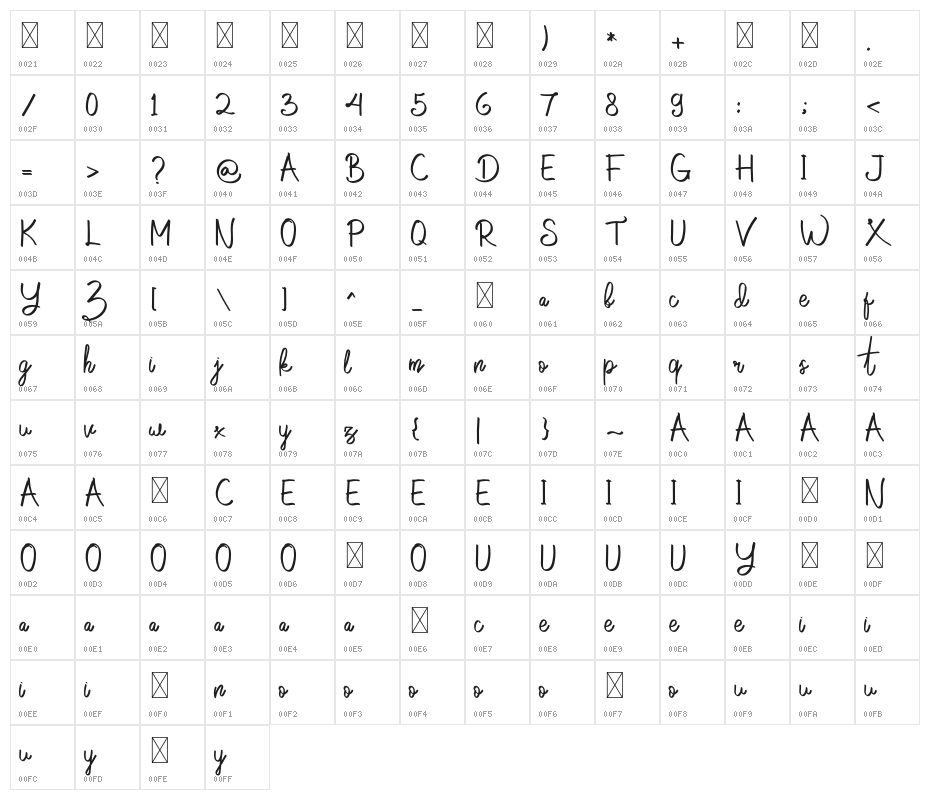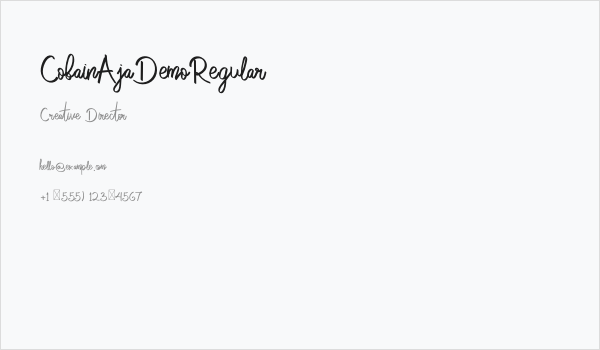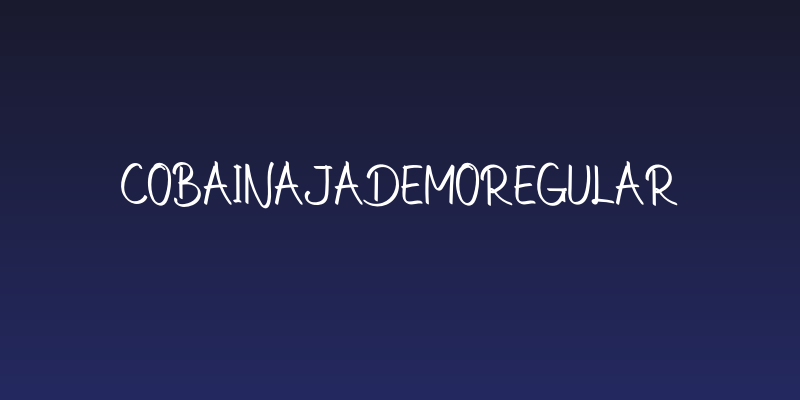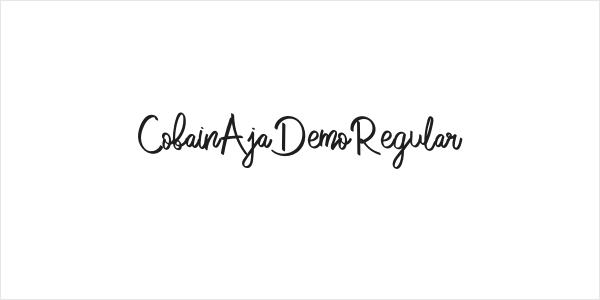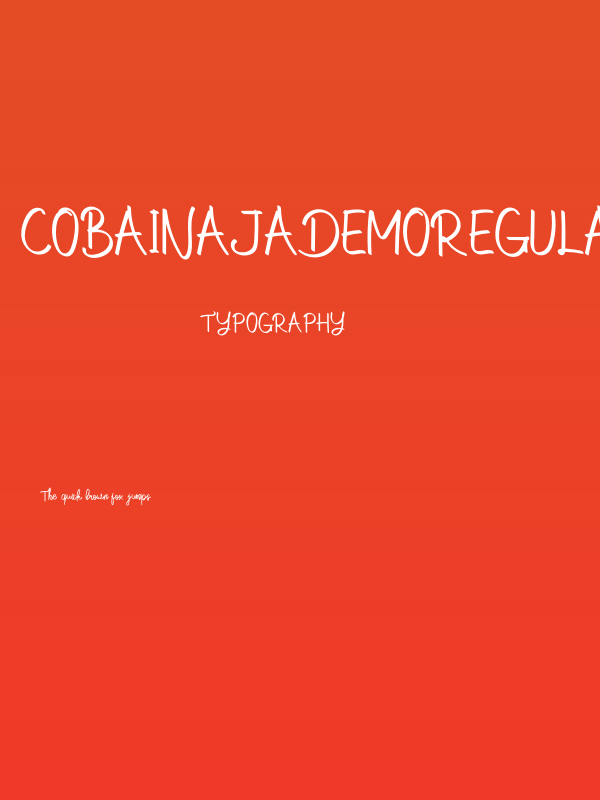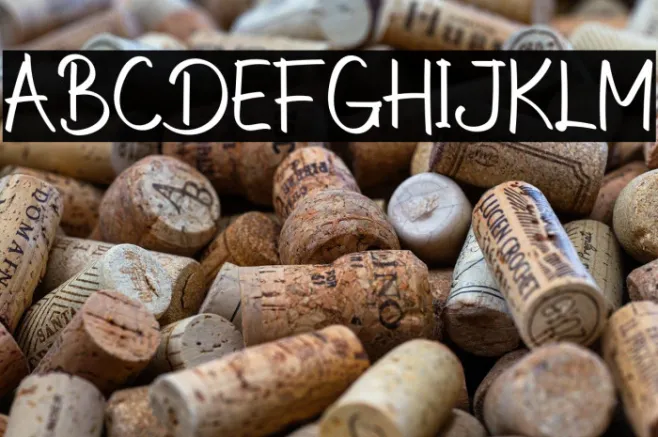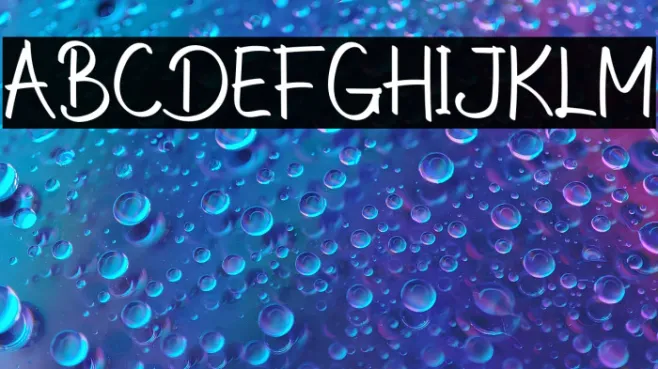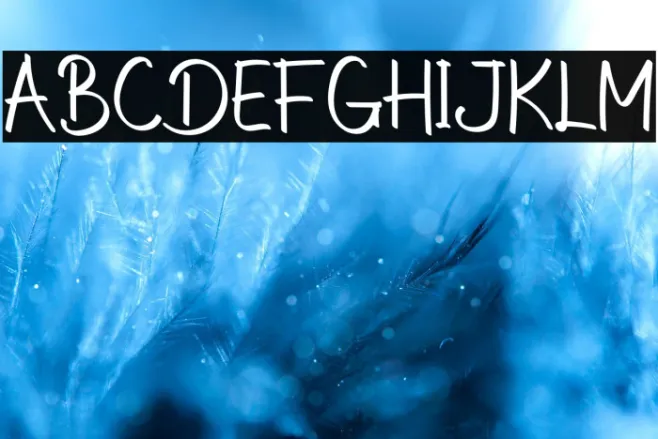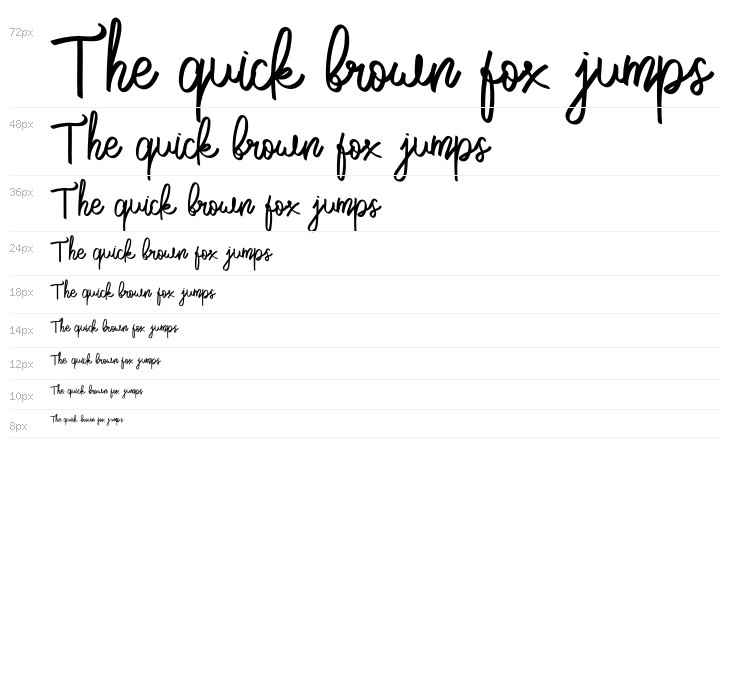
CobainAjaDemoRegular Font
CobainAjaDemoRegular Description
This font exudes a playful and casual handwritten style, characterized by its fluid and dynamic strokes. The uppercase letters are bold and slightly irregular, giving a sense of spontaneity and creativity. The lowercase letters are more connected, resembling cursive handwriting with a personal touch. Numbers are clear and consistent with the overall style, maintaining the playful aesthetic. The special characters are well-integrated, adding to the font's versatility. This font is perfect for projects that require a personal and informal tone, such as invitations, greeting cards, or creative branding.
| Proposed Projects | Ideal for invitations, greeting cards, creative branding, and informal communications. |